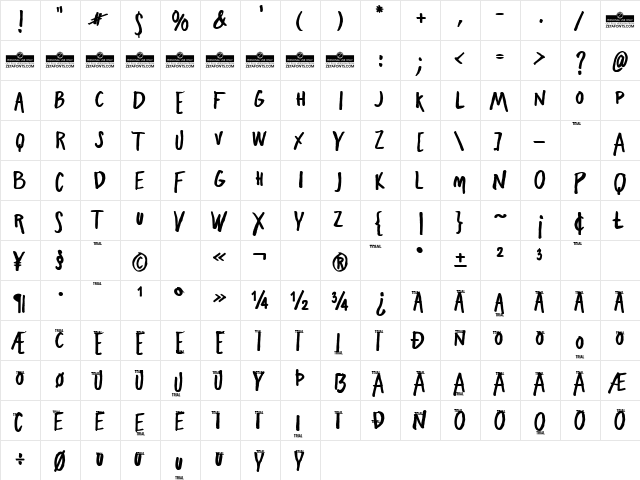
Freehand Blockletter Bold
| Foundry | Studio Kmzero |
| Designer | Debora Manetti |
Design Context for Freehand Blockletter Typeface
Freehand Blockletter flows with the natural rhythm of handwritten lettering, making it ideal for designs that call for warmth and personal expression. The heavy weight commands attention and anchors typographic hierarchies.
Font Pairing: Combine Freehand Blockletter with a simple geometric sans for maximum contrast — the tension between flowing curves and clean structure is a classic typographic pairing.
Pro Tip: Use Freehand Blockletter for short runs of text — names, titles, or taglines. Extended body copy in script faces tires the eye quickly.